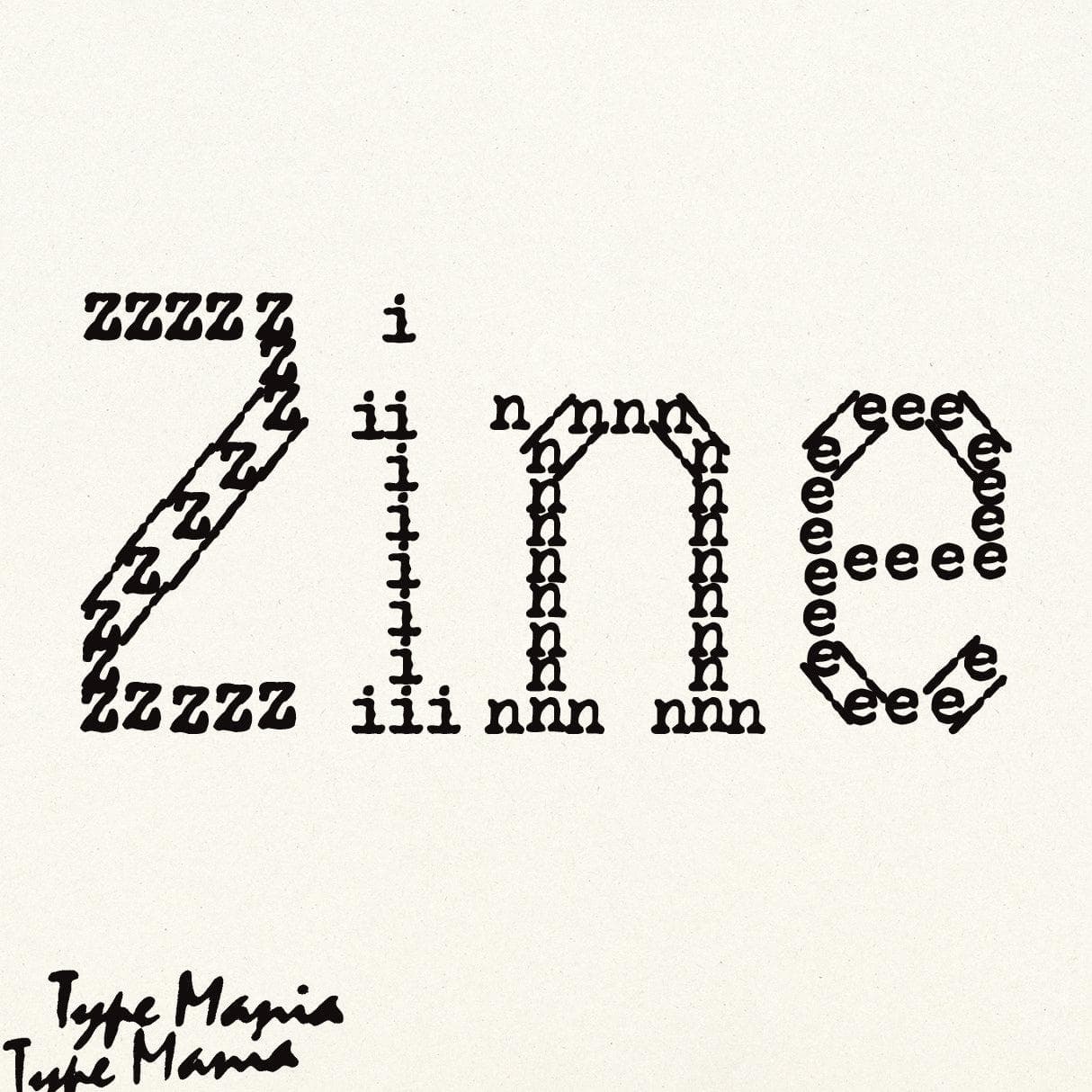
<p>Step back in time with our typewriter font with a 🌀twist🌀. Embrace the past, celebrate the present, and make your mark with <strong>Zine TM</strong> 📝</p> <p><strong>Zip includes</strong></p> <ul> <li>OTF file</li> <li>TTF file</li> <li>WOFF2 file</li> </ul> <p><strong>Languages</strong></p> <ul> <li>Basic Latin</li> <li>Western European</li> <li>Euro</li> <li>Central European</li> <li>Pan African Latin</li> <li>193 glyphs</li> </ul> <p><em>Graphic Design is Easy (with Type Mania)®</em></p>